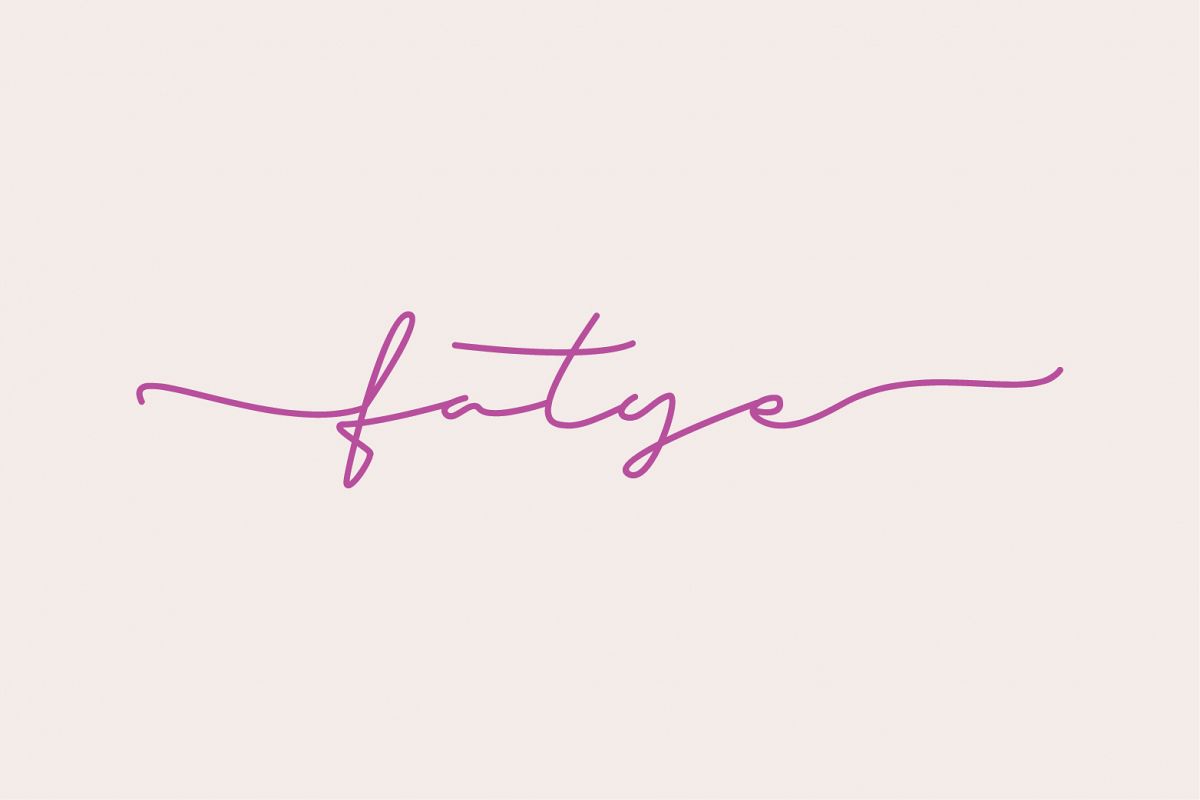
Fatye
Introducing the Fatye, a classy, contemporary script fonts,
Beautiful typographic harmony for a diversity of design projects, including logos & branding, wedding designs, social media posts, advertisements & product designs.